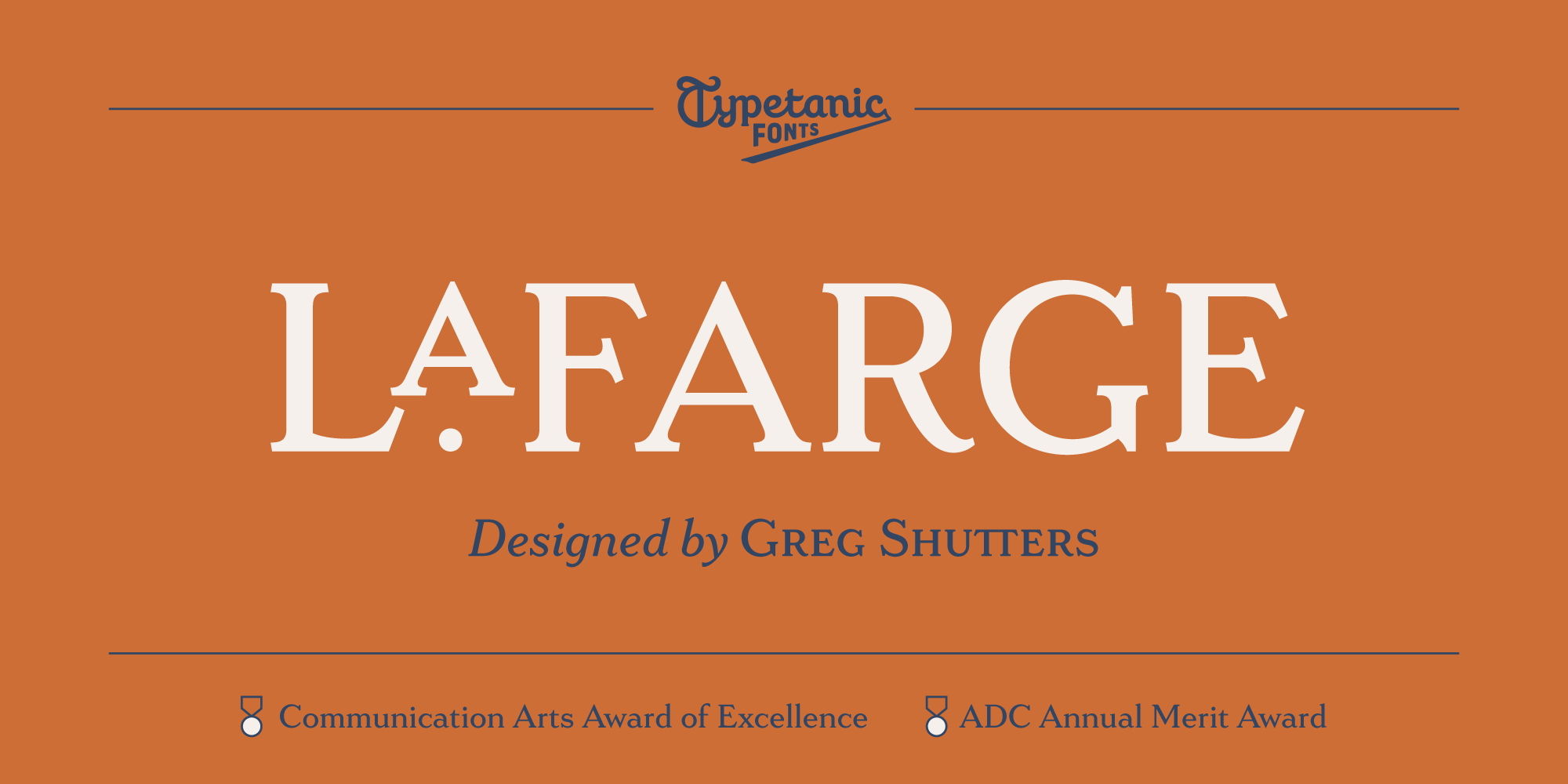
LaFarge Font is perfect for luxury brand logos, high-end fashion magazines, premium packaging design, elegant wedding invitations, upscale restaurant menus, sophisticated corporate identities, boutique hotel branding, and exclusive event materials.
LaFarge Font is exciting because it embodies timeless elegance and refined sophistication through its meticulously crafted letterforms and classical proportions, offering designers a typeface that effortlessly communicates luxury and prestige. Its balanced character design and subtle design details make it the perfect choice for brands that demand both visual distinction and enduring appeal.
The LaFarge Font family includes multiple elegant variations: LaFarge Light, LaFarge Regular, LaFarge Medium, LaFarge Bold, LaFarge Italic, and LaFarge Display, along with ornamental capitals and decorative elements, providing designers with comprehensive tools for creating sophisticated luxury brand experiences.
When seeking premium typography solutions, LaFarge Font Free Download emerges as the definitive choice for designers working on high-end projects that require exceptional elegance and refinement. This distinguished typeface captures the essence of luxury through its carefully balanced proportions and sophisticated character styling, making it particularly effective for brands targeting affluent consumers who appreciate quality and craftsmanship. The font's timeless appeal ensures designs remain elegant and relevant across changing trends.
Professional designers consistently rely on LaFarge Font for projects demanding the highest levels of sophistication and visual impact. Its expertly crafted letterforms feature classical influences that work exceptionally well in both traditional and contemporary luxury applications. The font's ability to convey exclusivity and refinement while maintaining perfect readability makes it invaluable for comprehensive brand identity systems in the luxury goods and premium services sectors.
Whether you're developing luxury product packaging, creating upscale hospitality materials, or designing exclusive fashion campaigns, LaFarge Font delivers the sophisticated presence and premium quality that discerning clients expect. Its refined aesthetic adapts beautifully from intimate product labels to grand architectural signage, ensuring consistent luxury appeal across all brand touchpoints while maintaining the authentic elegance that defines truly exceptional design.